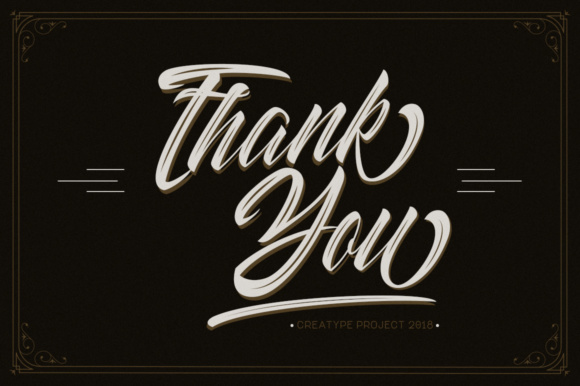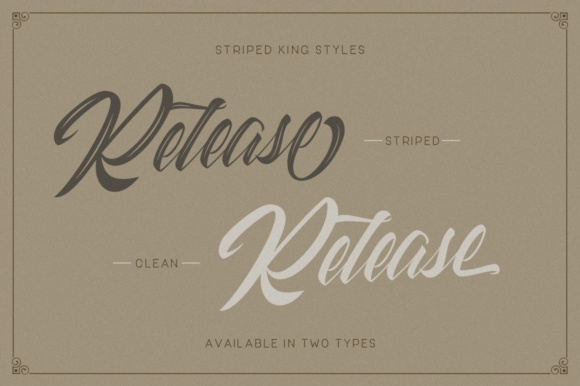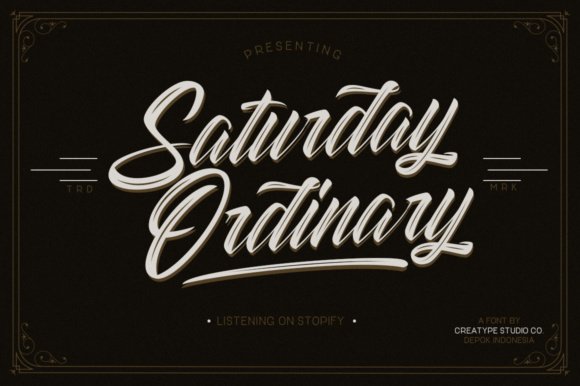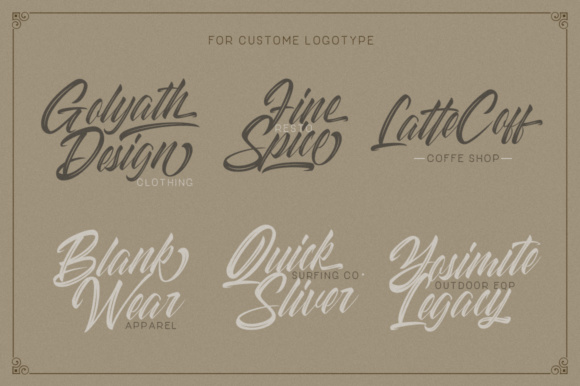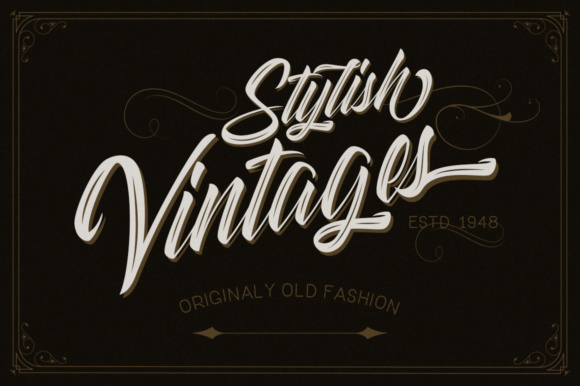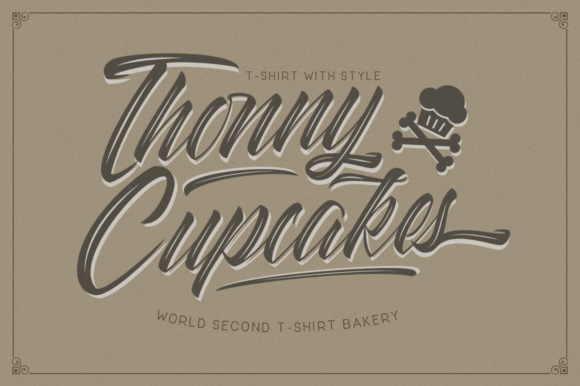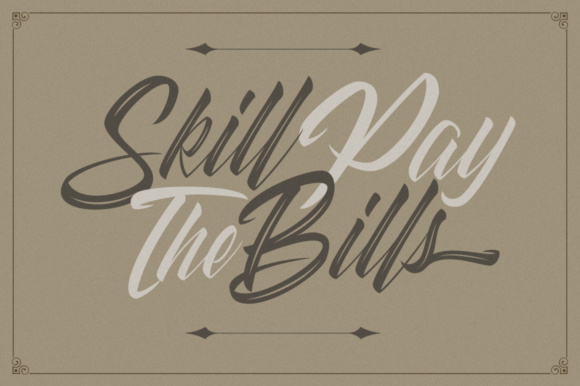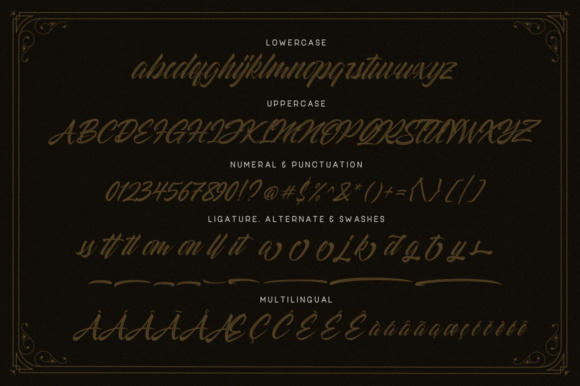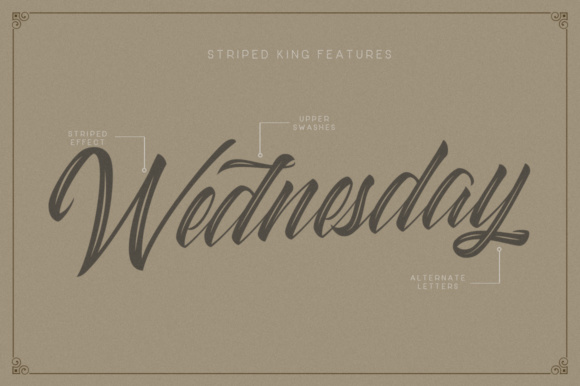
Striped King Font
About Striped King Font
Striped King is a modern, vintage-inspired font that looks great in a wide range of projects. This gives projects an elegant and immensely stylish appeal.